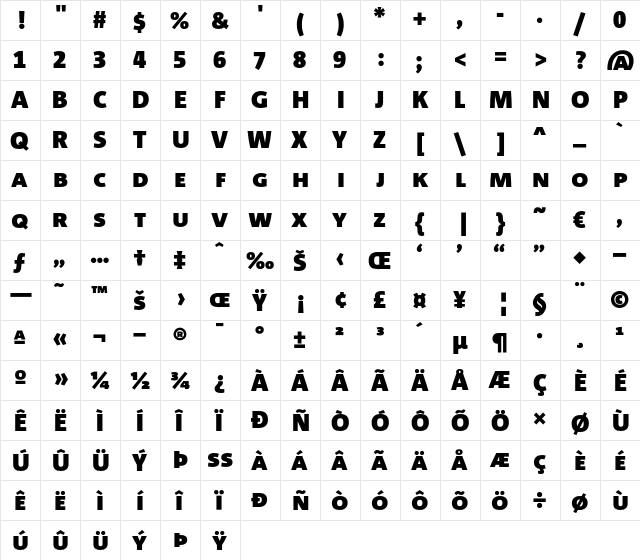
Corpid Caps Black
Design Context for Corpid Caps Typeface
Corpid Caps is a composed and adaptable typeface that performs quietly and consistently across a wide range of design contexts.